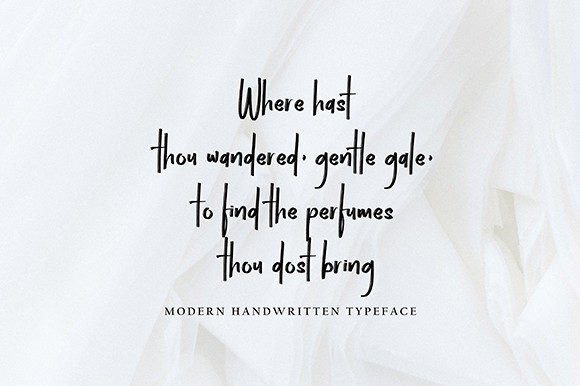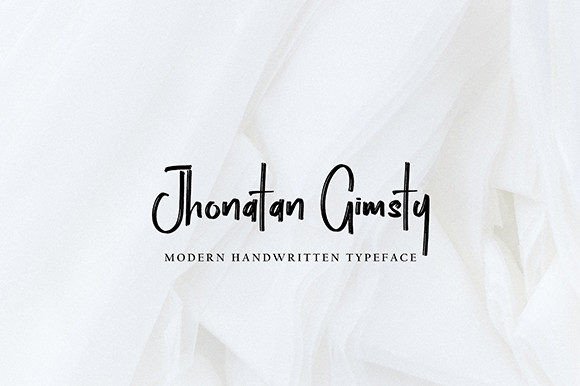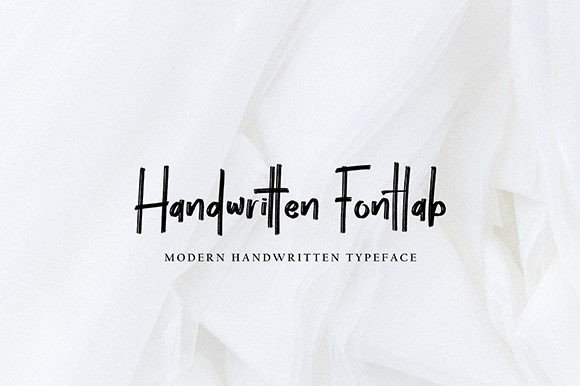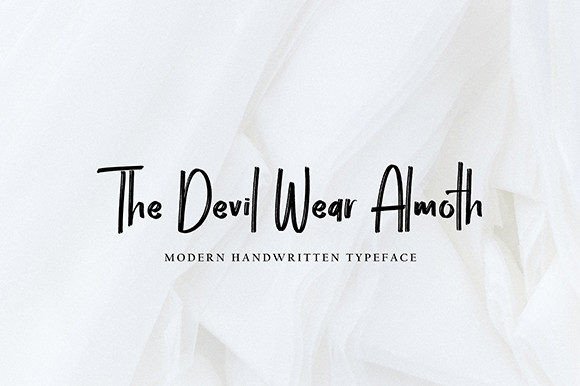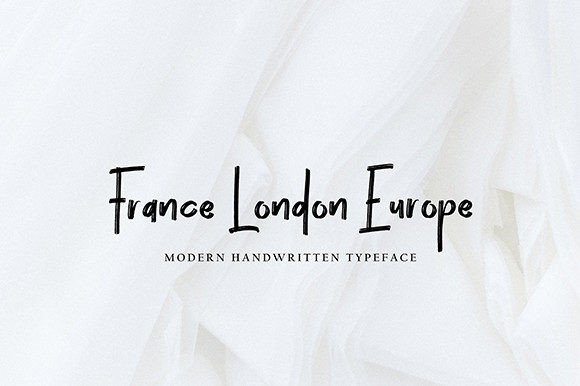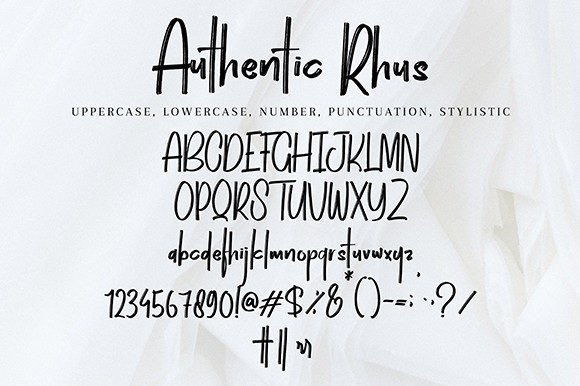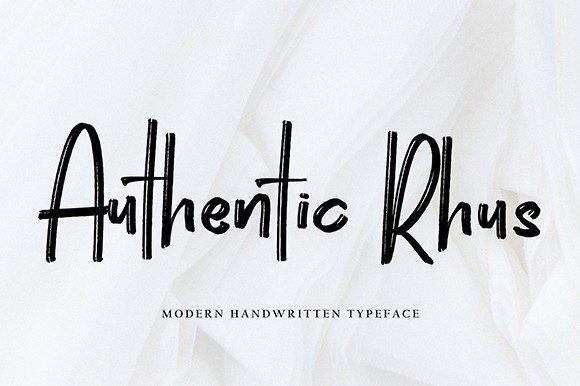
Discover the Elegance of Authentic Rhus Font: A Perfect Choice for Your Creative Projects
In the world of typography, a well-chosen font can elevate your design and make it stand out. If you’re looking for a unique and elegant handwritten font that adds a touch of sophistication to your projects, look no further than Authentic Rhus. This beautiful font is perfect for a variety of designs requiring a personalized style, such as wedding invitations, thank you cards, greeting cards, logos, and more.
What Makes Authentic Rhus Font So Special?
Authentic Rhus is a one-of-a-kind handwritten font that boasts a distinctive and elegant look. Its unique charm makes it an excellent choice for designers and crafters who want to add a personal touch to their creations. Whether you’re designing wedding stationery, creating custom logos, or crafting beautiful greeting cards, Authentic Rhus font is sure to impress.
Key Features of Authentic Rhus Font
- Unique and Elegant Design: Authentic Rhus font features a beautiful, handwritten design that’s both elegant and sophisticated.
- Versatile: This font is perfect for a wide range of projects, including wedding invitations, thank you cards, greeting cards, logos, and more.
- Easy to Read: Despite its elegant design, Authentic Rhus font is easy to read, making it perfect for both digital and print designs.
- Personalized Style: This font adds a personal touch to your designs, making them stand out from the crowd.
Uses of Authentic Rhus Font
Authentic Rhus font is incredibly versatile and can be used for a variety of projects, including:
- Wedding Stationery: Create beautiful wedding invitations, save-the-date cards, and thank you cards with Authentic Rhus font.
- Greeting Cards: Design stunning greeting cards for special occasions, such as birthdays, anniversaries, and holidays.
- Logos and Branding: Use Authentic Rhus font to create custom logos and branding materials that exude elegance and sophistication.
- Digital Designs: This font is perfect for digital designs, including social media graphics, blog posts, and website headers.
Tips for Using Authentic Rhus Font
To get the most out of Authentic Rhus font, here are some tips to keep in mind:
- Pair with Other Fonts: Experiment with pairing Authentic Rhus font with other fonts to create a unique and visually appealing design.
- Use for Headings and Titles: This font is perfect for headings and titles, adding a touch of elegance to your designs.
Authentic Rhus font is a beautiful and elegant handwritten font that’s perfect for designers and crafters looking to add a personal touch to their projects. With its unique design, versatility, and ease of use, this font is sure to become a favorite in your design arsenal. Whether you’re creating wedding stationery, logos, or greeting cards, Authentic Rhus font is an excellent choice. So why wait? Discover the elegance of Authentic Rhus font and take your designs to the next level.